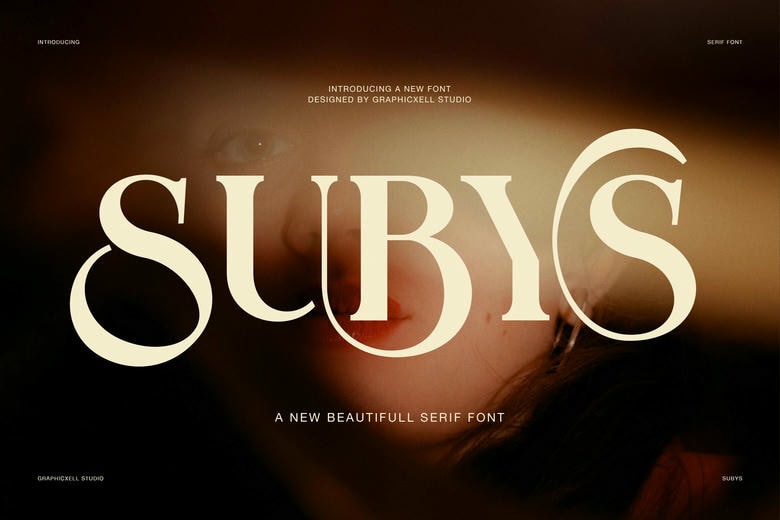
Subys Font
Subys is an elegant display serif font that gives a strong sense of luxury, fashion, and modern editorial style. It features high-contrast strokes, smooth curves, and refined letter shapes that make a bold visual impression. This font always feels stylish and premium.
Subys Serif Font